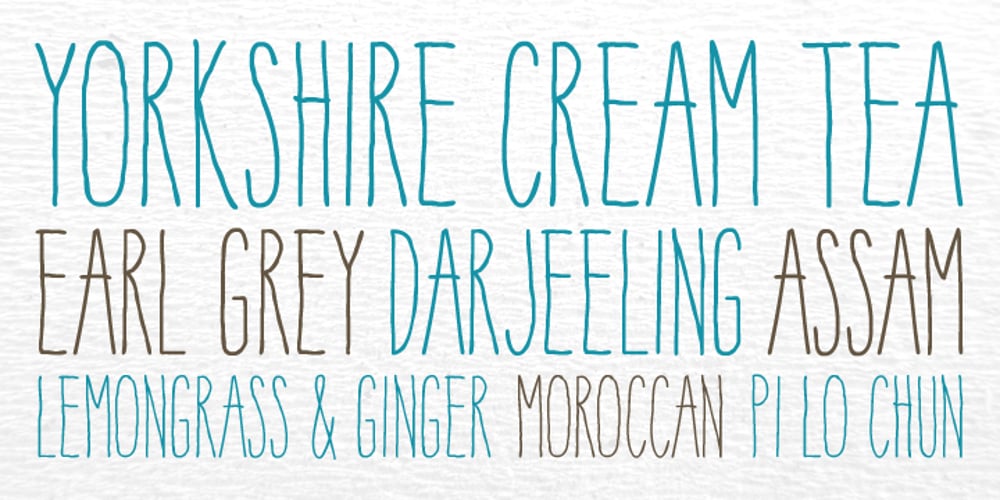
York Handwriting Font Family was designed by Alex Haigh, Dawn Lewandowski and published by HyperFluro. York Handwriting contains 1 styles and family package options. A hand-drawn font inspired by the menu from a tearoom in York. York Handwriting is simple but with accentuated features, creating an effect that is decorative and distinct while still being clear. Giving the look of chalk or wet-wipe pens, this font will provide you with texture to make your work stand out, almost literally. With York Handwriting, any design can be granted the humble, homely look of a small, side-alley tearoom, especially with the emphasised x-height helping the text to stand out.